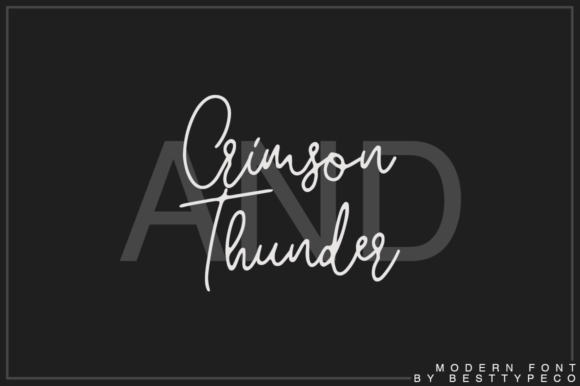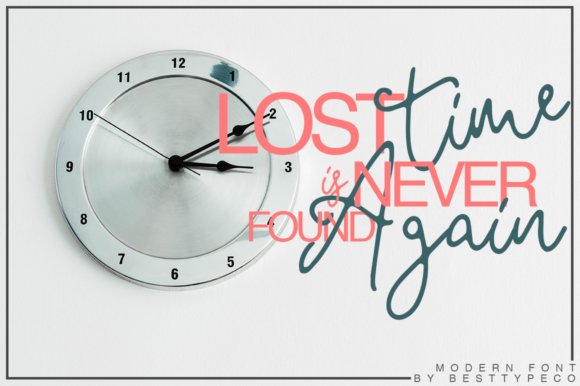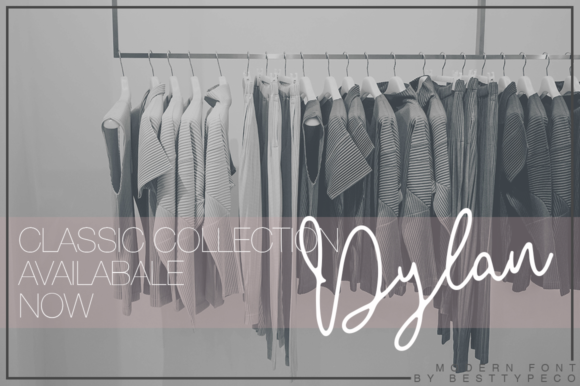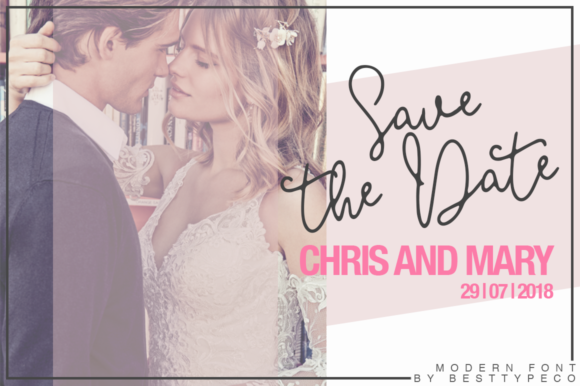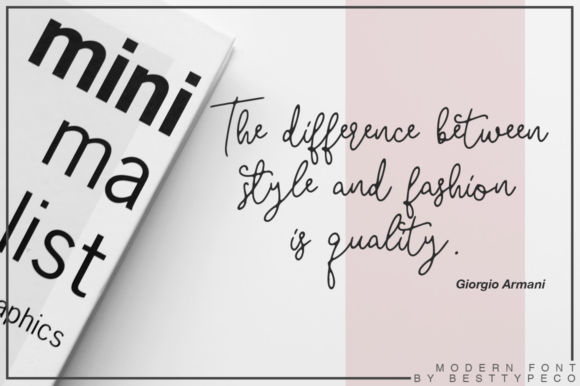
Crimson and Thunder Font
About Crimson and Thunder Font
Crimson and Thunder is a delicate and elegant handwritten font. Its distinct and well rounded letters make this font a masterpiece. Fall in love with its incredibly versatile style and use it to create spectacular designs!